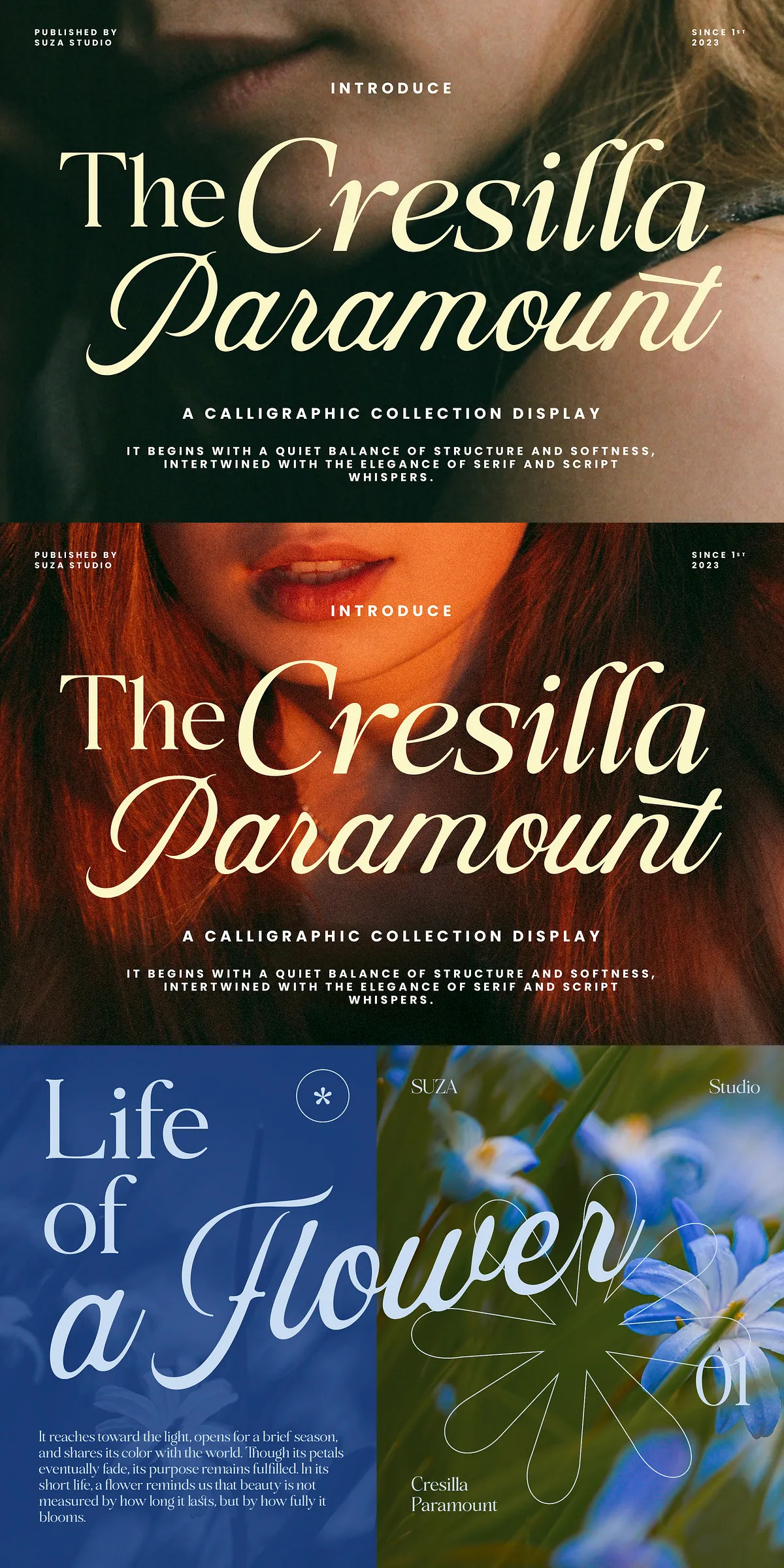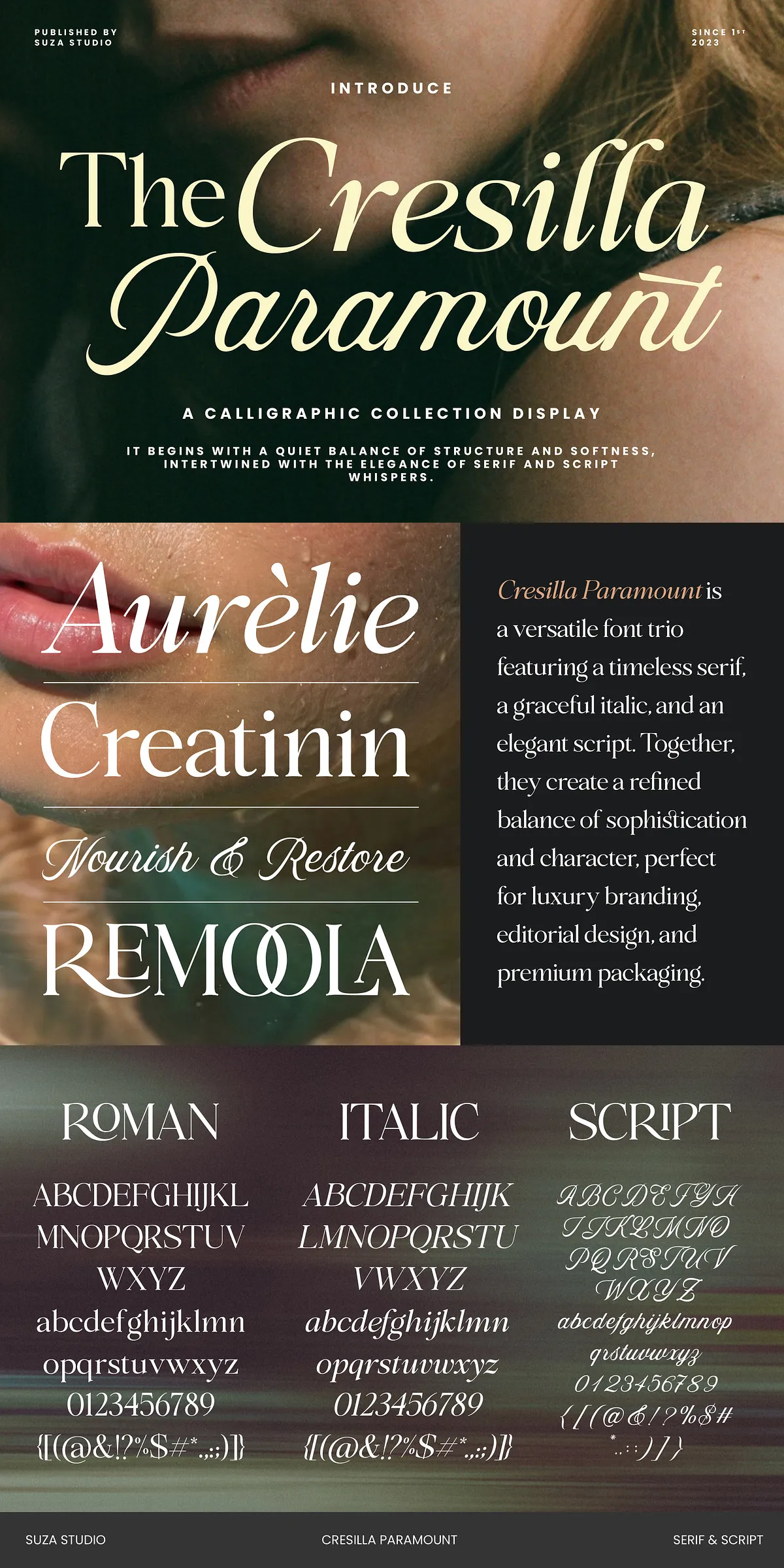
Cresilla Paramount blends graceful script strokes with structured serif forms to create a distinctive typeface that elevates every design it touches. It delivers a refined aesthetic rooted in nostalgia while remaining perfectly suited for contemporary applications. Use Cresilla Paramount to convey sophistication, warmth, and authenticity across brand identities, editorial projects, packaging, and social media content. The typeface’s dual nature — smooth cursive connections paired with subtle serif anchors — provides a flexible voice that adapts to both headline statements and decorative accents.
Elegant Script And Serif Hybrid For Versatile Use
Cresilla Paramount excels as a headline display and as a decorative element within broader typographic systems. The script segments bring fluid motion and personality; the serif details add structure and legibility. Designers will find the font particularly effective for fashion and lifestyle branding, wedding stationery, boutique packaging, magazine mastheads, and curated social media campaigns. Because Cresilla Paramount balances ornament and clarity, it performs well in both large-format applications and tighter compositions where character and readability matter.
Ideal Uses For Branding And Editorial Applications
Apply Cresilla Paramount to brand logos to introduce a handcrafted, luxury feeling. Use it for editorial headlines to draw attention while maintaining an elegant tone. Deploy the font on packaging to communicate premium quality and artisanal care. For social media visuals, Cresilla Paramount creates standout text overlays that pair cleanly with photographic imagery. The typeface invites designers to mix expressive script words with serif-based subheads or sans-serif body text, producing layered, high-impact compositions.
Technical Features And OpenType Support For Designers
Cresilla Paramount ships with a robust set of OpenType features that unlock creative typographic control. The font includes ligatures, contextual alternates, stylistic alternates, and PUA-Encoded characters for accessible special glyphs without extra software. Multilingual support broadens application to international projects, while carefully tuned kerning and weights ensure consistent rhythm across headlines and accents. These technical capabilities let designers fine-tune letter connections, switch to alternate letterforms, and craft bespoke logotypes directly within their design tools.
Start with bold, expressive headings using Cresilla Paramount and follow with a clean, readable companion font for body copy. Leverage stylistic alternates for logo refinements and choose ligatures for smoother wordforms in display settings. Test the font at multiple sizes and across mediums — print, screen, and textile — to confirm the desired effect. Cresilla Paramount invites confident typographic choices: use it to create memorable brands, polished editorials, and striking visual narratives that hold attention while communicating quality and refinement.